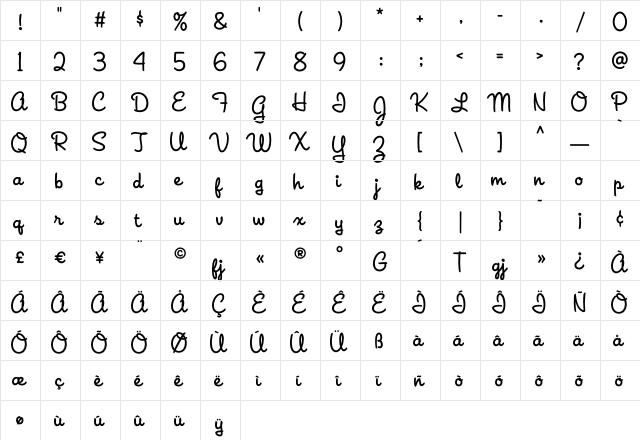
House-A-Rama League-Night
Design Context for House-A-Rama Typeface
House-A-Rama takes a measured approach to typography — its balanced proportions and neutral character make it a reliable workhorse for both digital and print work.